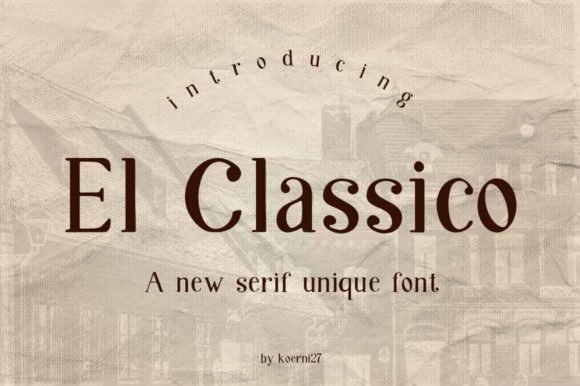
Unleashing the Timeless Elegance of El Classico Font
It was during one such moment that I stumbled upon El Classico Font, a classic serif font that exudes timeless elegance and sophistication. With its vintage vibe, this font is perfect for designers seeking to add a touch of sophistication to their invitation designs, logos, quotes, and more. Whether you’re a seasoned pro or a budding designer, El Classico Font is a valuable addition to your toolkit, offering a level of sophistication that’s hard to resist.
- Font Family: El Classico is a unique, elegant serif font designed for headings and titles.
- Unique Characteristics: Distinctive, flowing strokes and subtle flair on the terminals give El Classico its distinctive, high-end feel.
- Language Support: Supports a wide range of languages, including Latin-based scripts, making it suitable for international designs.
- Kerning and Ligatures: Includes advanced kerning and ligature pairs for improved text flow and aesthetic appeal.
El Classico Font Review
Overall, I have mixed feelings about the El Classico Font. While it has some nice features, it’s not without its limitations.
- Unique and elegant design: El Classico Font has a distinctive style that can add a touch of sophistication to any project.
- Good legibility: The font is easy to read, even at smaller sizes, making it suitable for body text.
- Wide language support: El Classico Font supports a wide range of languages, including Latin, Cyrillic, and Greek scripts.
- Limited font weights: El Classico Font only comes in a few weights, which can limit its versatility.
- No italic or bold-italic styles: This can make it difficult to create emphasis or highlight important information.
- Not suitable for headings: While El Classico Font is nice for body text, it’s not strong enough for headings, which can make it look out of place.
El Classico Font is a solid choice for body text, but it may not be the best option for headings or projects that require a lot of emphasis. With a little creativity, it can be a nice addition to a design project, but it’s not a go-to font for me.
Tips for Getting the Most Out of El Classico Font
For optimal results, use El Classico Font in combination with other classic or vintage-inspired elements. Experiment with different font sizes, styles, and colors to create a unique look.
El Classico Font is suitable for various design projects, including:
– Vintage-inspired posters and flyers
– Classic book covers and titles
– Retro-themed websites and social media graphics